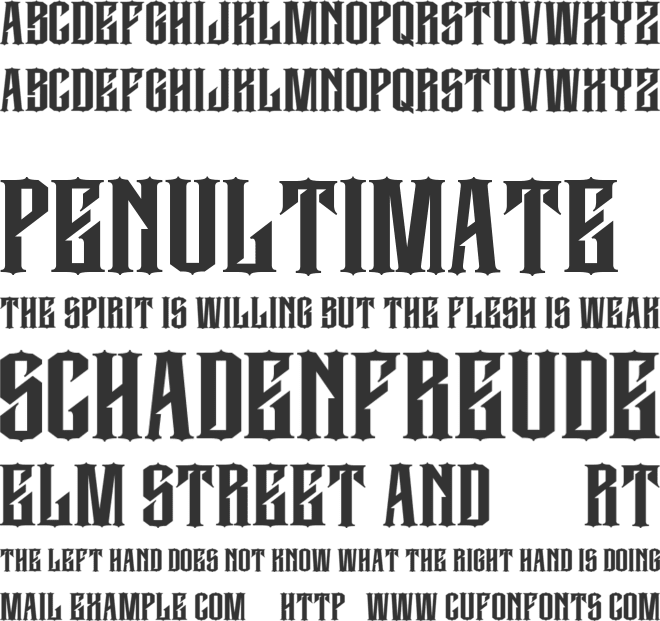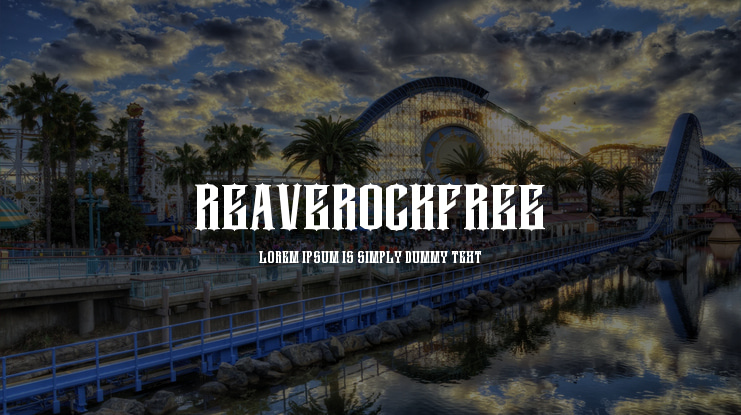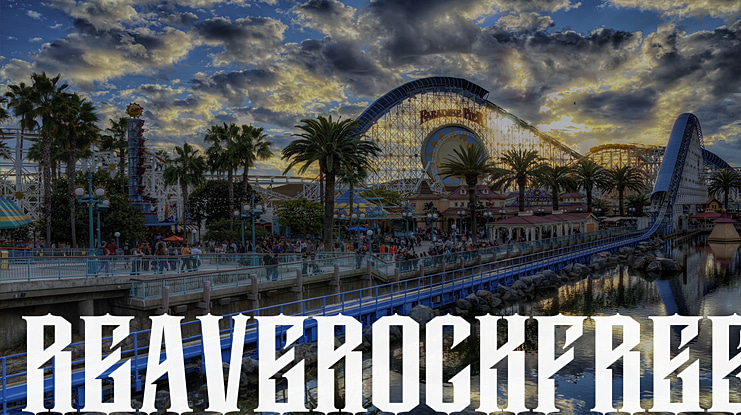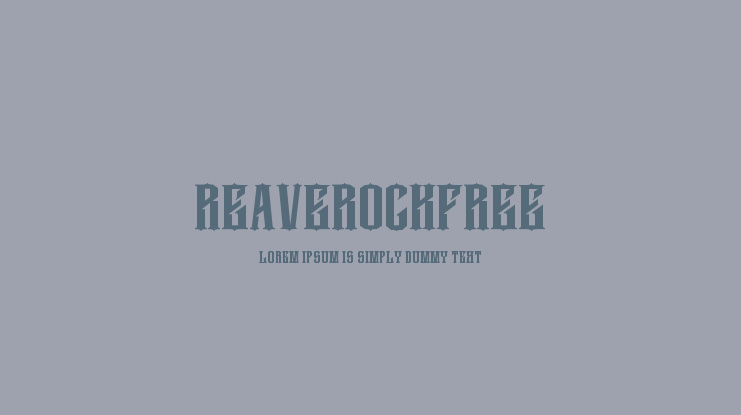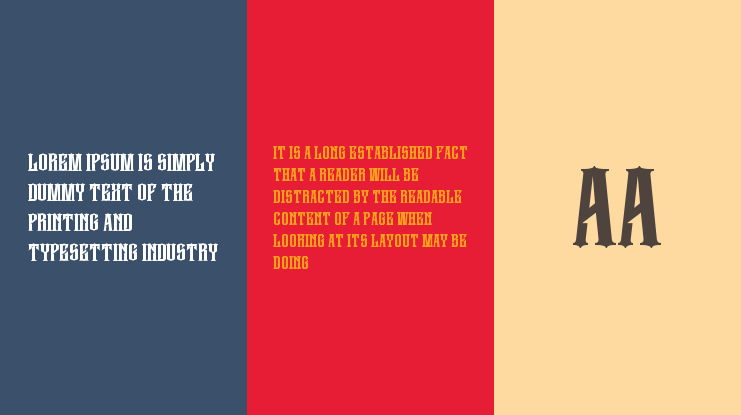
Reaverockfree Font
Hello fontspacer, my name Arthy, i want to share my latest project. A modern gothic font, it's free for any kind you want to use. A full version of Reaverock font, you can find it at https://creativemarket.com/arthy_type/3874608-Reaverock-Display-font